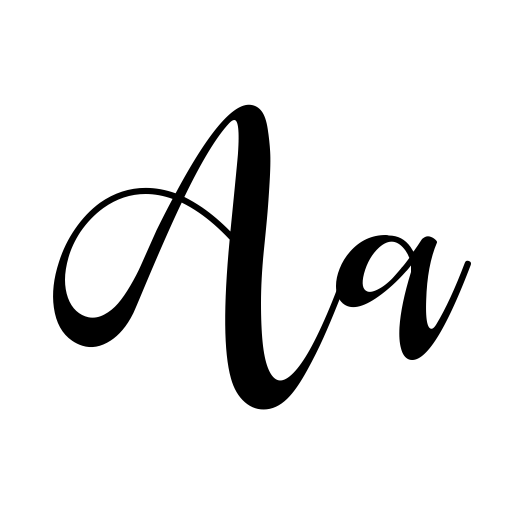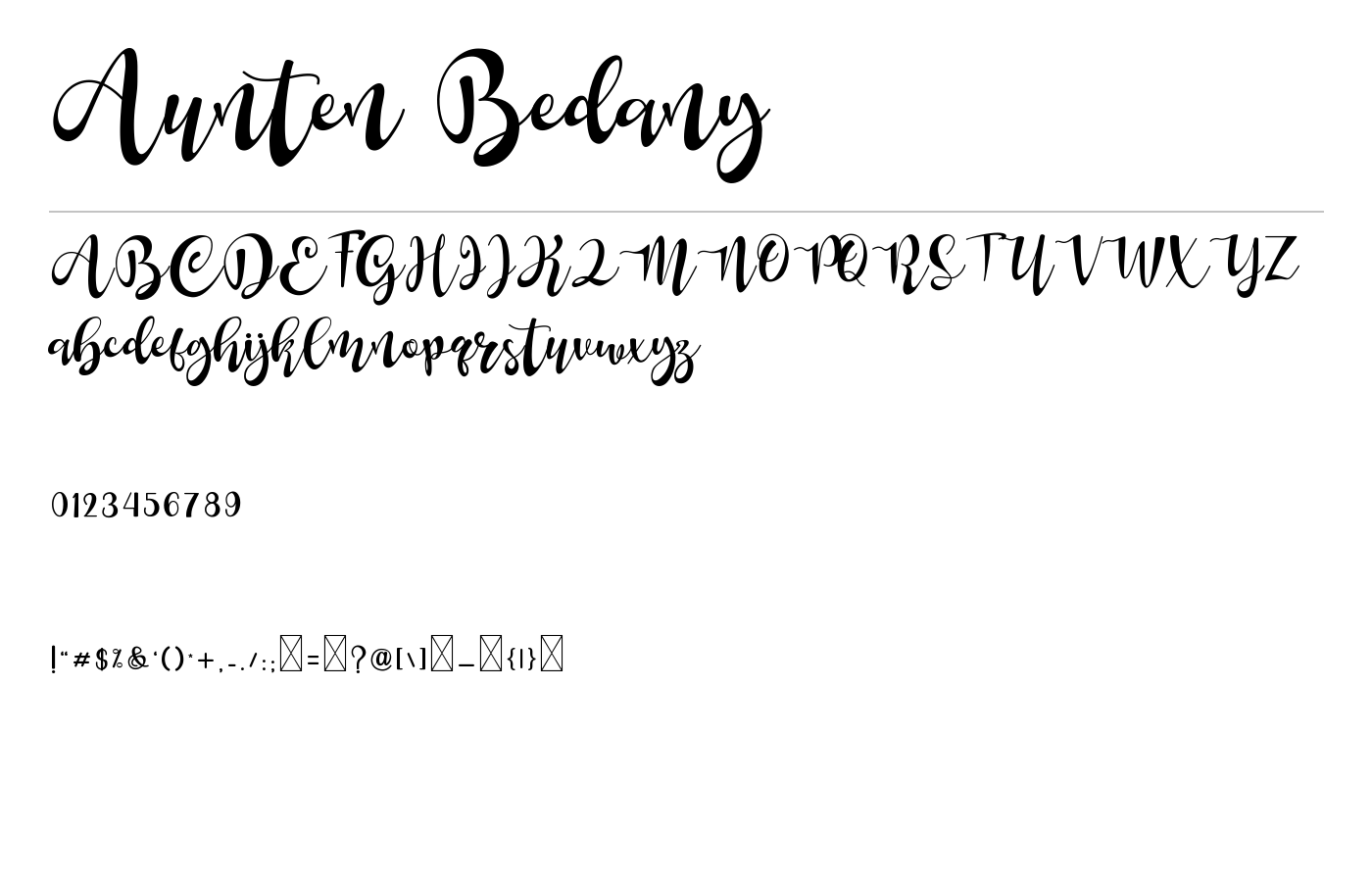
Aunten Bedany is a stylish script font that combines elegant, flowing strokes with a modern calligraphic flair, making it perfect for creating a sophisticated and expressive look. Its smooth curves and varying stroke widths give it a playful yet refined personality, ideal for branding, invitations, and creative projects that need a touch of charm and femininity. This font works beautifully in headlines and logos where an artistic and warm feel is desired.
Aunten Bedany Font
About Aunten Bedany Font